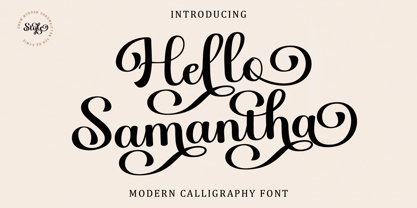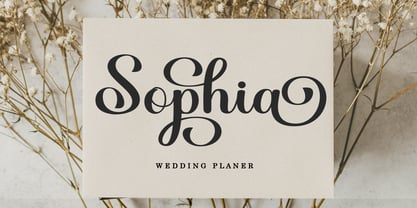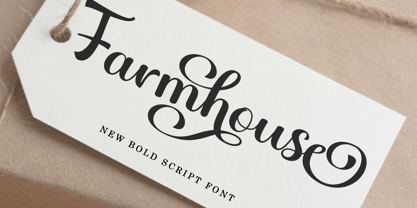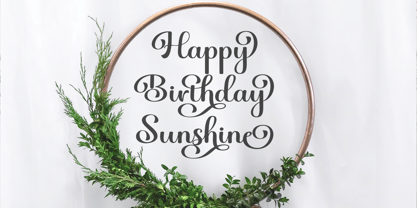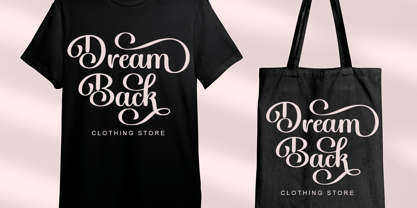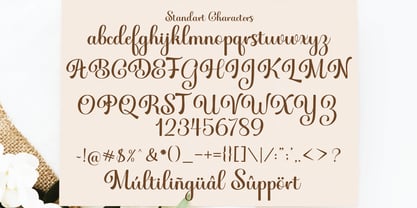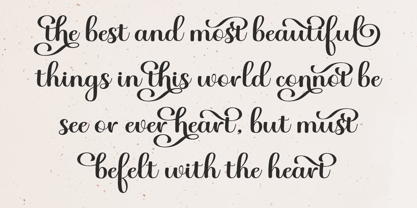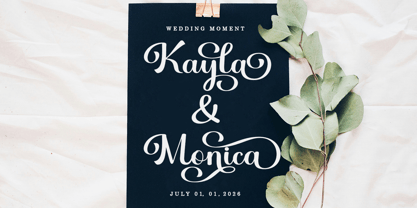
Hello Samantha Italic
by Romie Creative
The Hello Samantha Italic Font Family was designed by Romi Rahmadi and published by Romie Creative. Hello Samantha Italic contains 2 styles and family package options.
Hello Samantha is attractive because it is sleek, clean, feminine, sensual, glamorous, simple, and very easy to read, thanks to the many beautiful letter connections. I also offer a number of decent style alternatives for some of the letters. The classic style is perfect for use in various formal forms such as invitations, labels, restaurant menus, logos, fashion, makeup, stationery, novels, magazines, books, greeting/wedding cards, packaging, labels, or any type of advertising purpose. ...
Contains a complete set:
-Uppercase
-Lowercase
-Alternative
-Ligatures
-Punctuation
-Number
-Multilingual support.